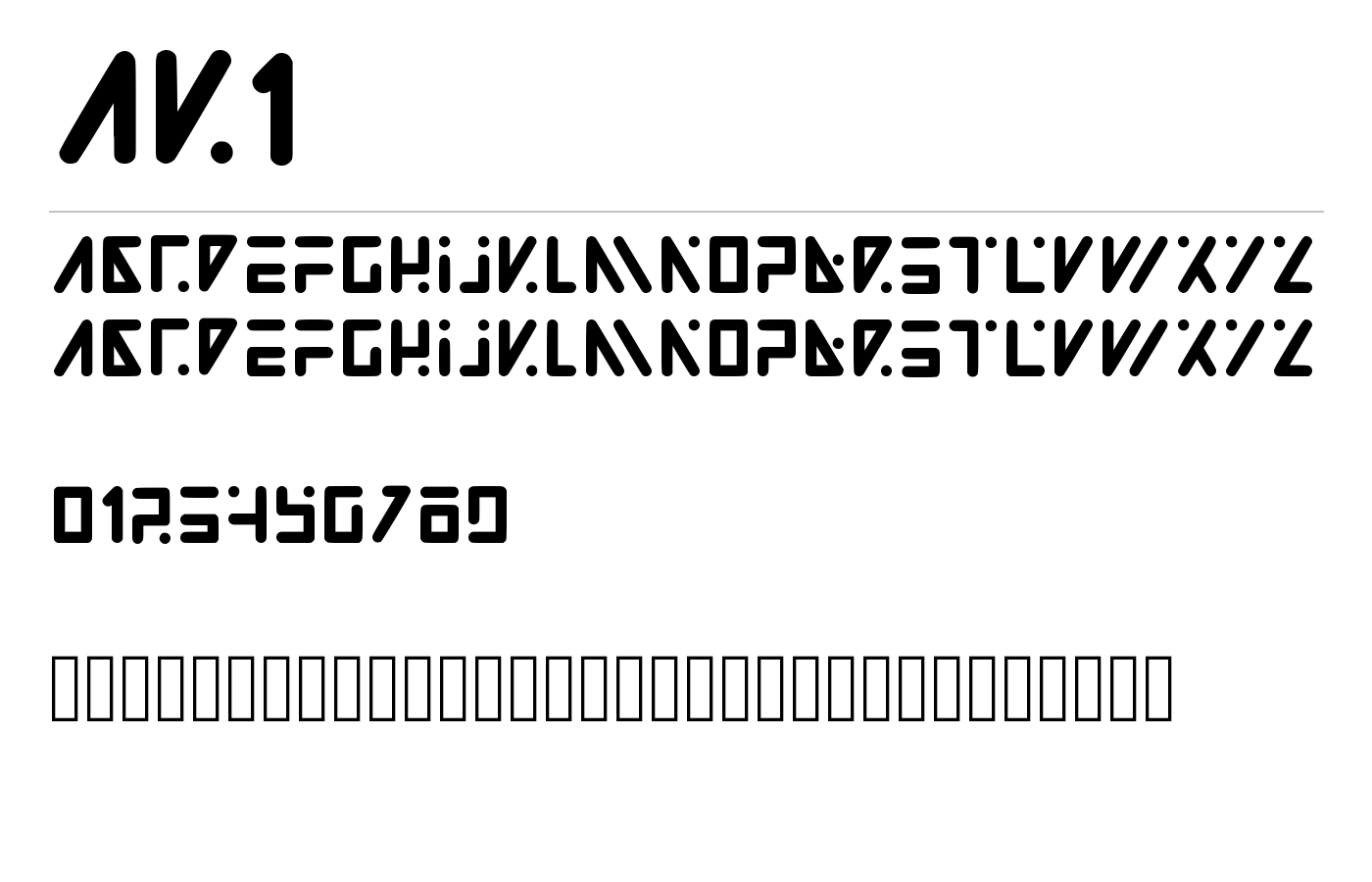
A Font is a futuristic, geometric sans serif typeface with a strong, technical character and medium weight. Its unique, angular letterforms combined with square counters and distinct dot accents give it a modern, digital feel perfect for technology-focused branding, sci-fi projects, and contemporary editorial design. This font works best in headlines, logos, and display uses where its bold, stylized shapes can stand out and make a striking impression.
A Font
About A Font